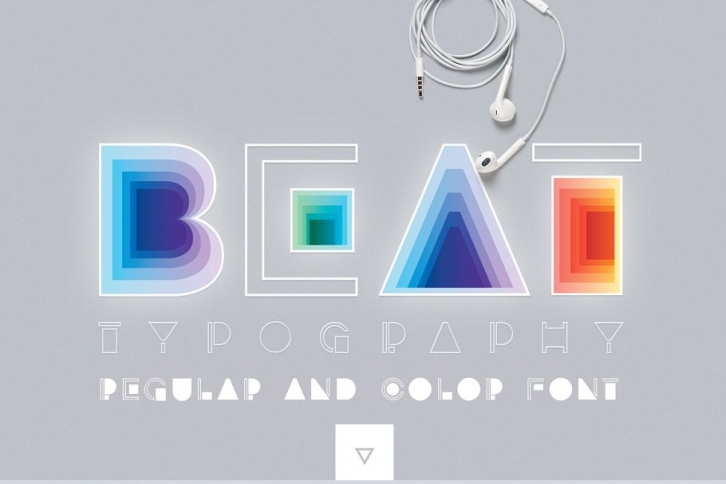
BEAT TYPOGRAPHY VECTORS, REGULAR FONT AND COLOR SVG FONT!
Beat typography is a minimal, futuristic, clean symbol font that is inspired with music beats vibrations, it can be used for various purposes, such as branding, cd cover designs, poster designs, mobile applications and much more.
COLOR FONT